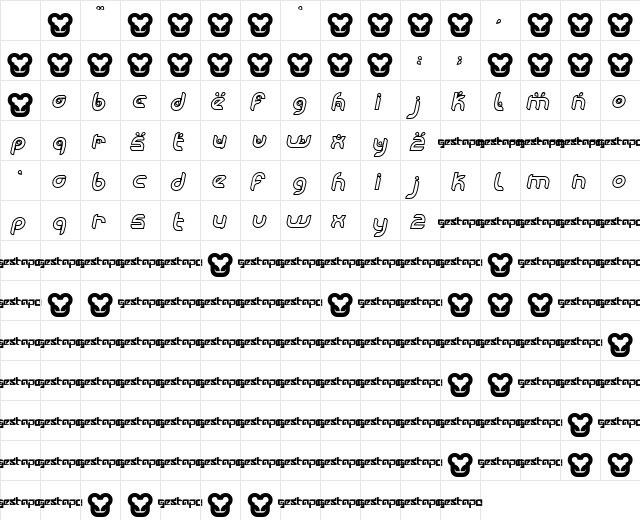
Complete Moogwai ThinOblique glyph index. Displaying only characters natively supported by Moogwai ThinOblique font.
Moogwai is a composed and adaptable typeface that performs quietly and consistently across a wide range of design contexts. The slanted form adds forward momentum and visual energy. Its slender proportions lend an understated elegance to any composition.